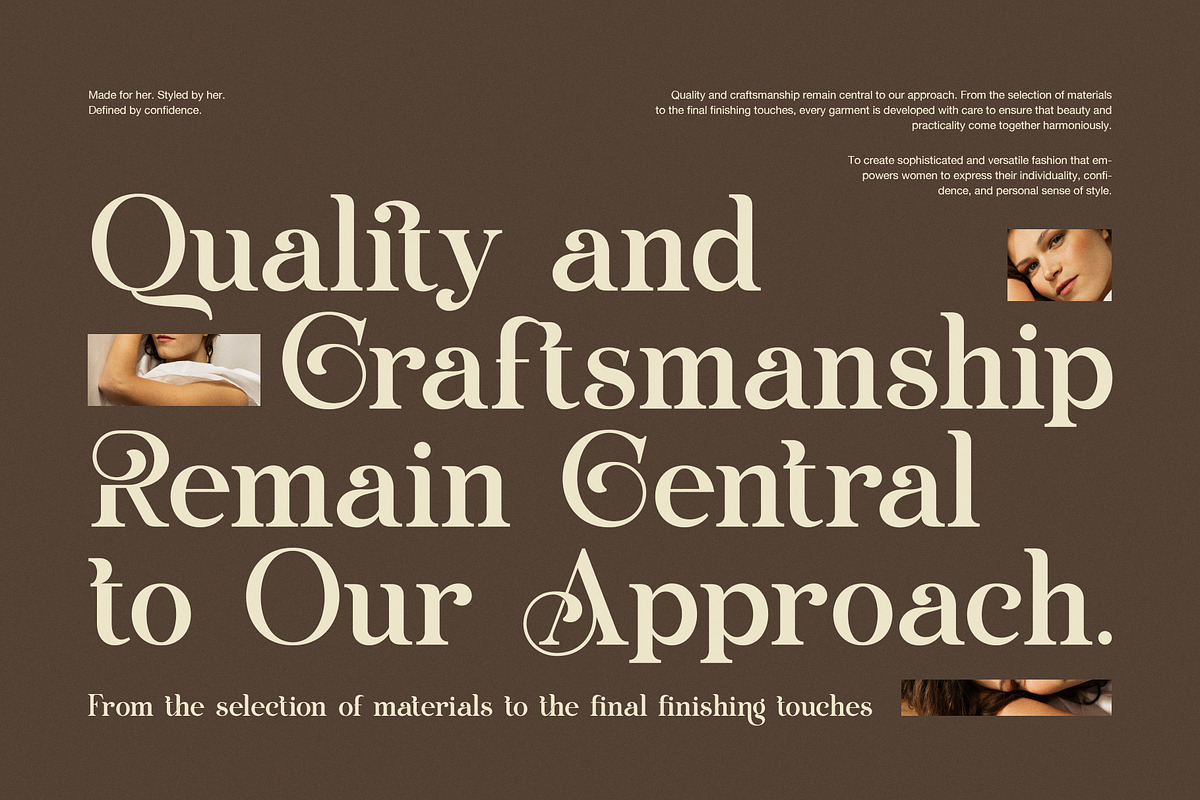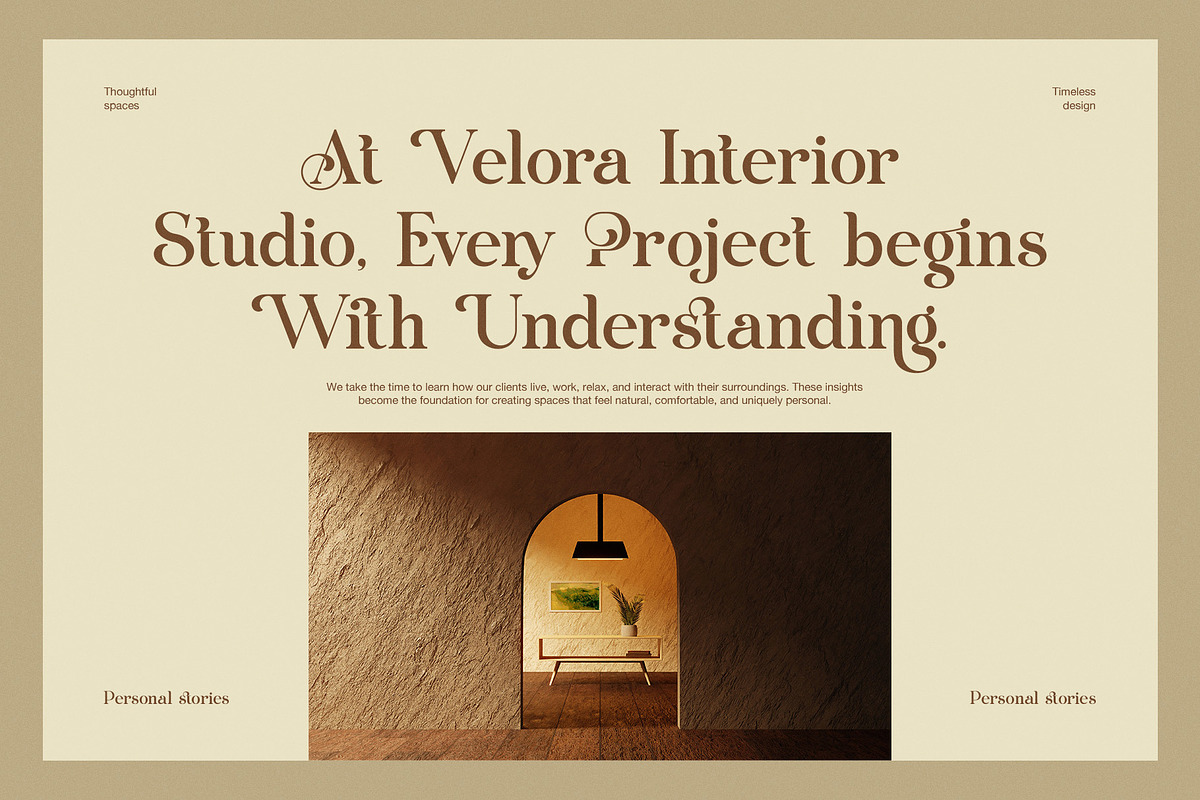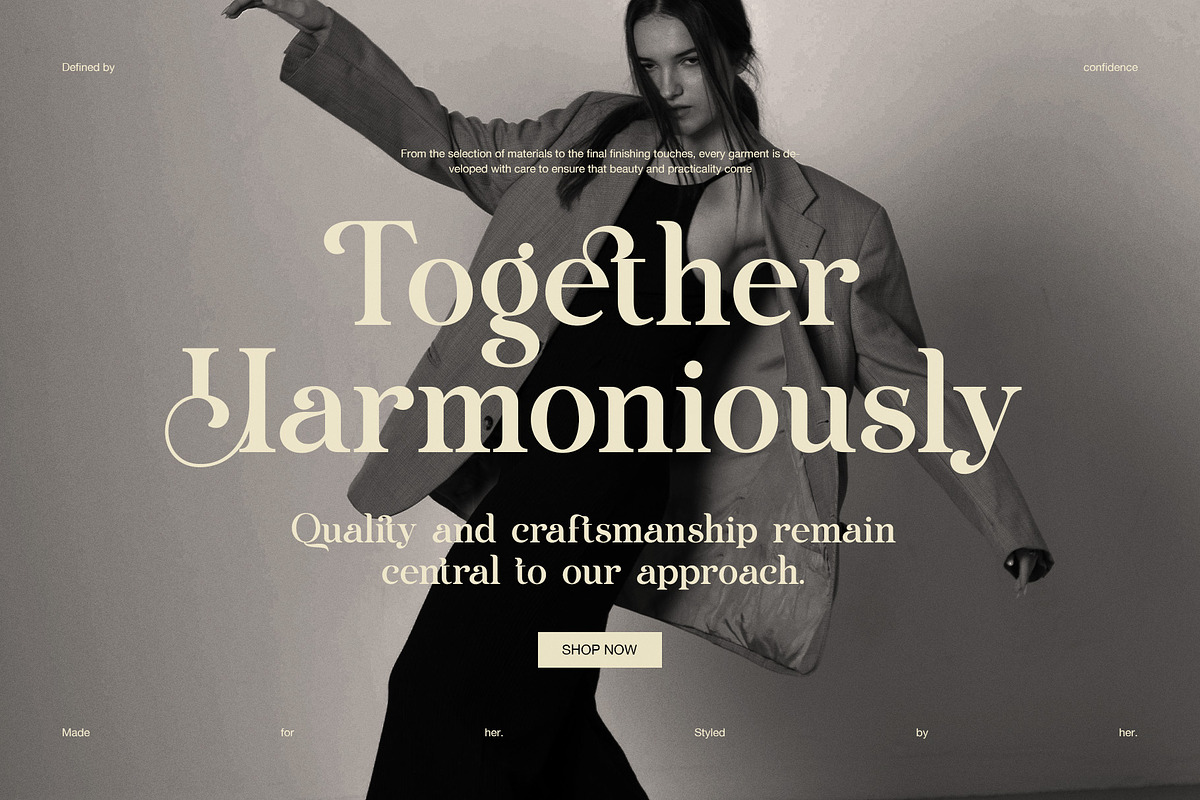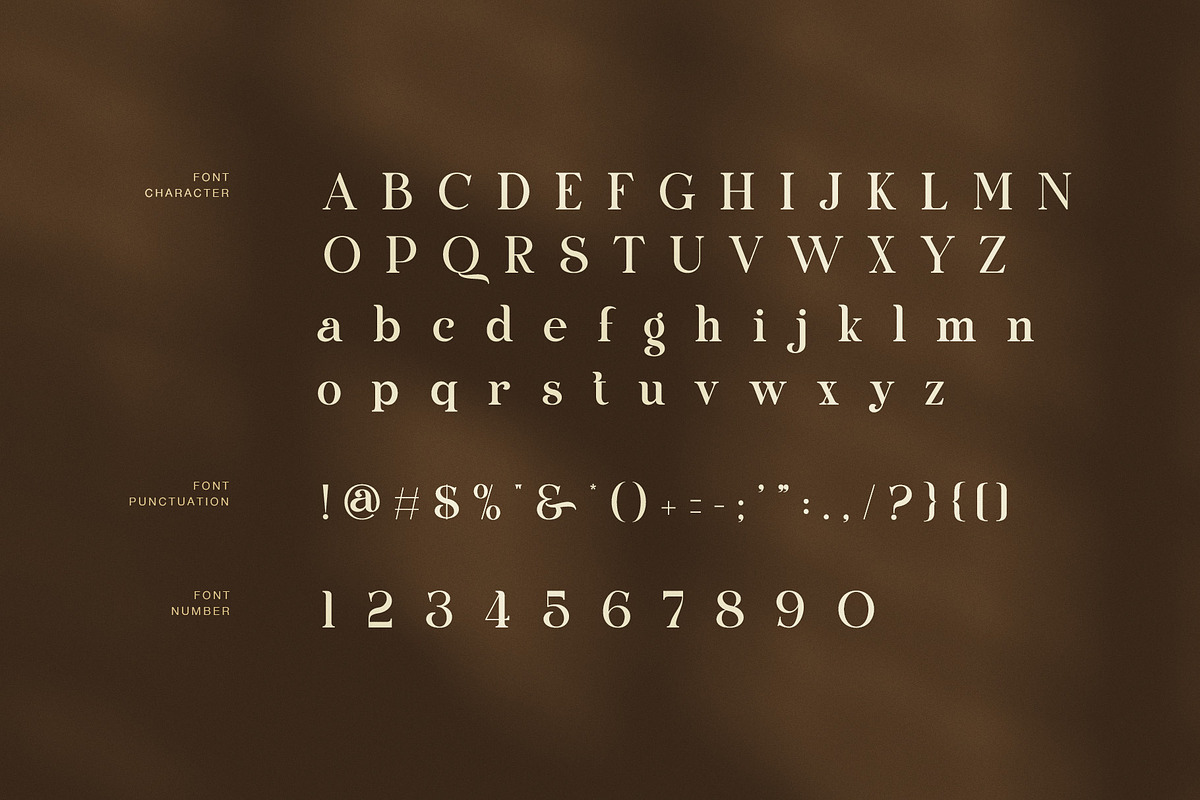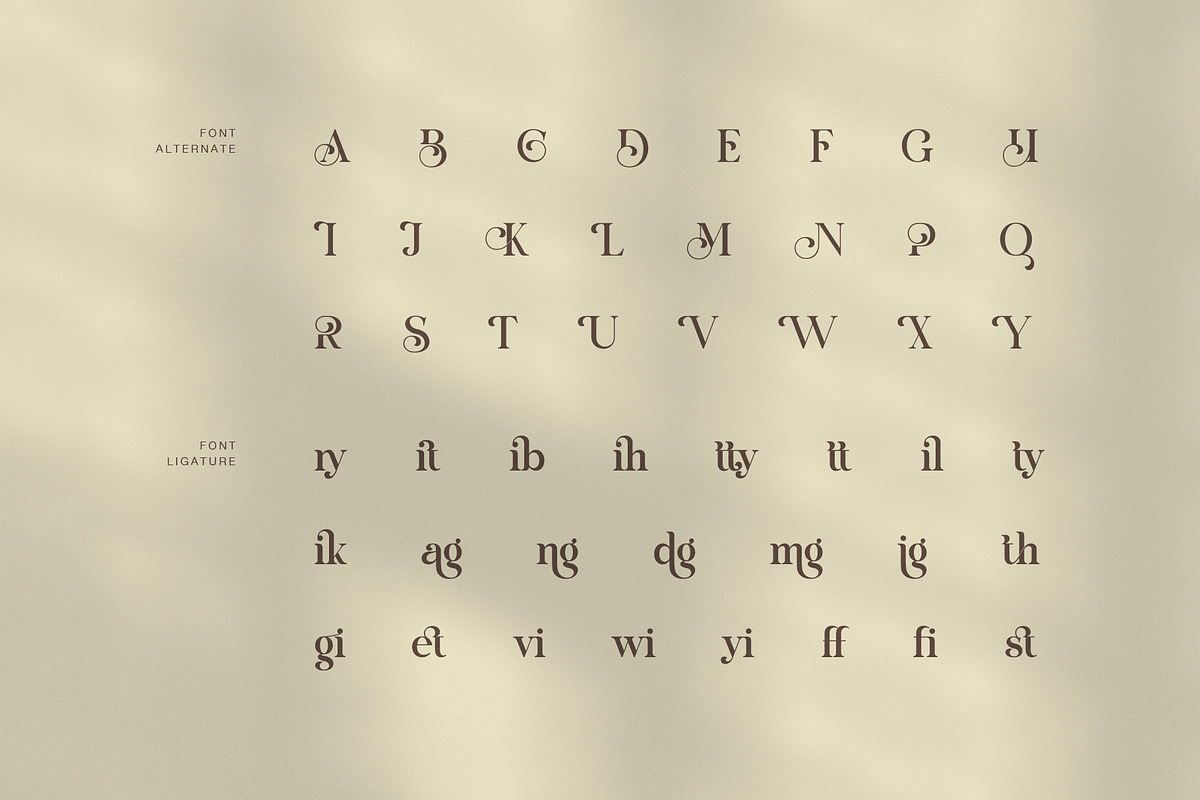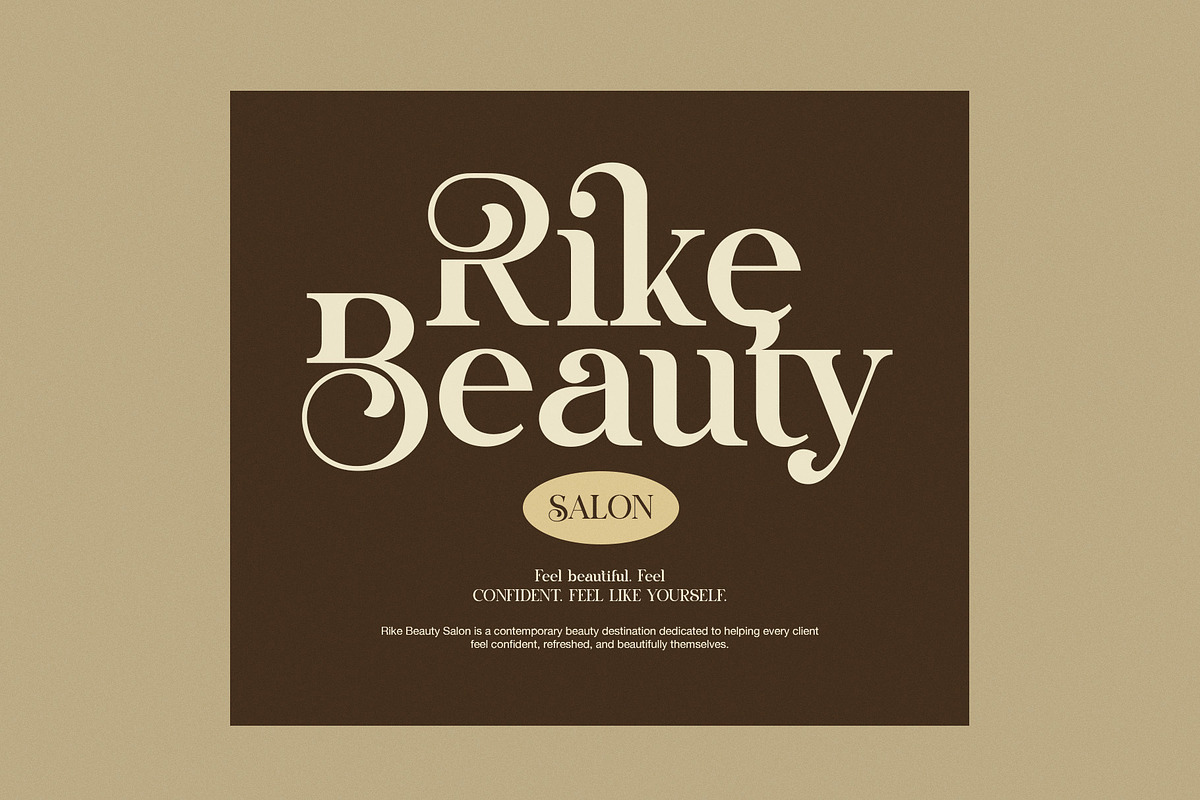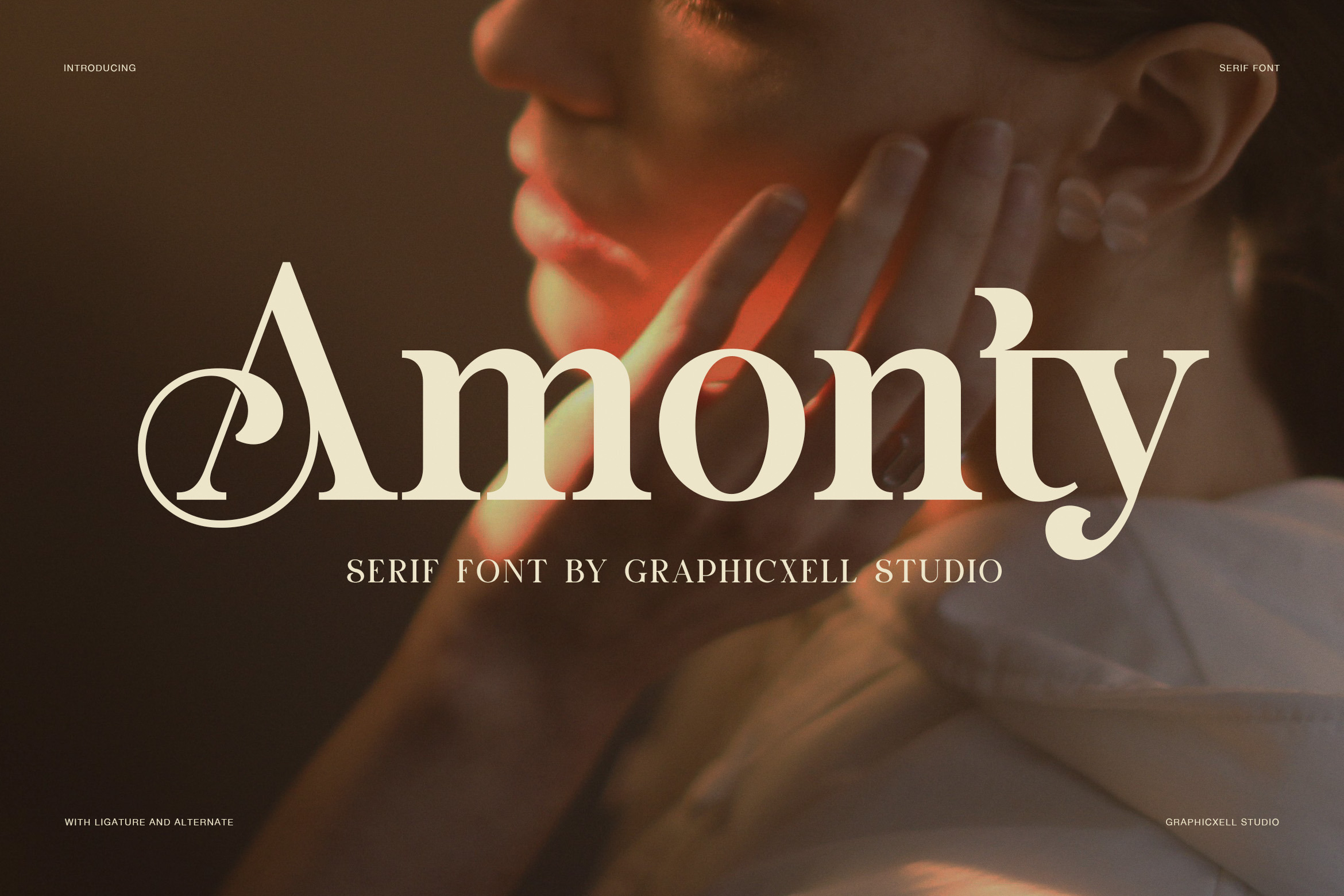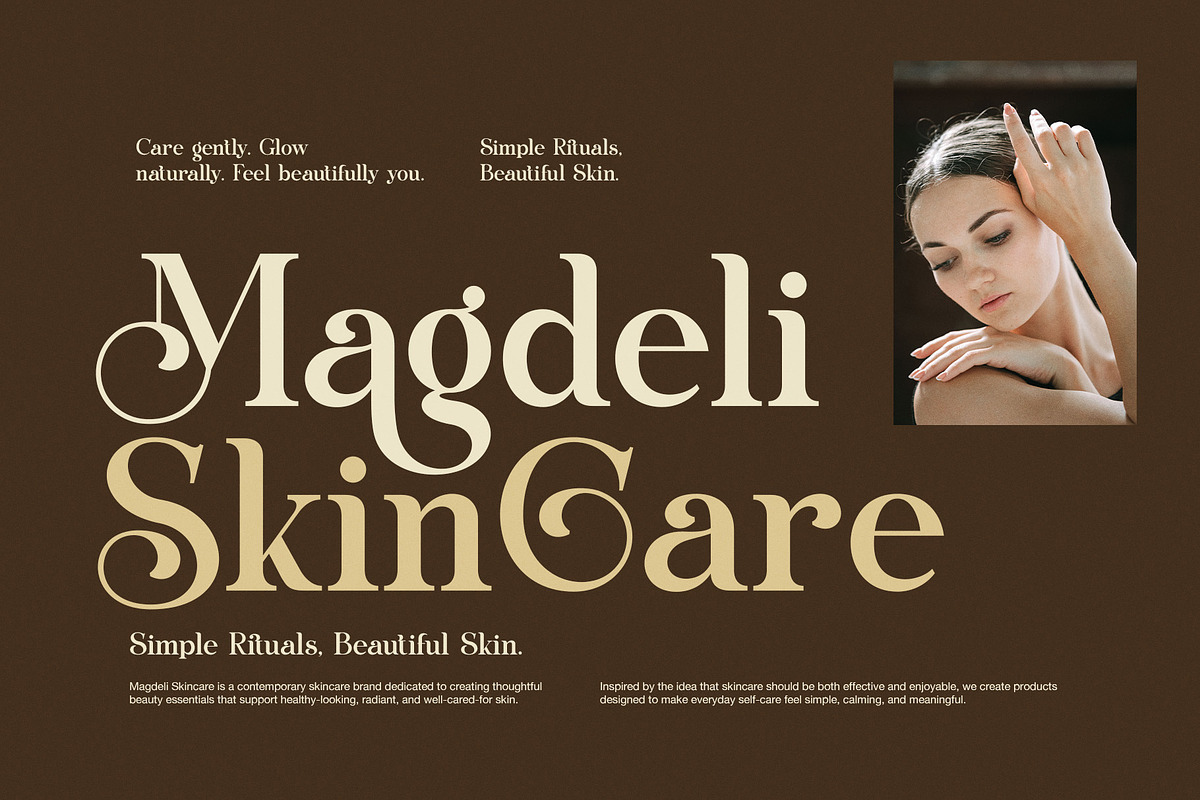
Amonty Contrast Serif Font
Amonty is a high contrast serif font designed for modern branding, beauty, fashion, and editorial design. Its bold shapes create a strong visual presence. At the same time, its soft curves and rounded details add warmth and elegance.
Unlike a very thin fashion serif, Amonty has a fuller body that keeps headlines clear and easy to read. Therefore, it works especially well when you want refined typography with a more confident feel. Its classic serif base also gives the font a timeless touch.
Amonty includes distinctive alternate characters that can add a personal finish to selected words. In addition, its ligatures create smooth and attractive letter combinations. As a result, designers can build expressive logos, headlines, and brand names without making the layout feel too busy.
Beauty and skincare branding
Fashion labels and campaigns
Salon and spa identities
Luxury lifestyle brands
Interior design studios
Editorial layouts
Magazine headlines
Product packaging
Boutique logos
Posters and promotional designs
Wedding and lifestyle stationery
The font has a strong display character. However, it can also support shorter supporting text when used at a suitable size. This flexibility makes Amonty useful for both bold statements and more subtle brand details.
Furthermore, the rounded shapes give it a friendly quality that works well for beauty and lifestyle projects. Meanwhile, the high contrast keeps the overall design polished and premium.
For fashion projects, Amonty creates an editorial feel with a modern edge. Likewise, beauty brands can use its soft curves to create an elegant and welcoming identity. Interior studios can also use the font to add a warm, crafted tone to their visual language.
Amonty is especially effective when paired with clean layouts, neutral colors, photography, and spacious compositions. Its alternate glyphs can then provide an extra decorative touch where needed.
Overall, Amonty combines bold serif structure, soft curves, expressive alternates, and useful ligatures in one versatile display typeface. It is made for designers who want typography that feels modern, elegant, warm, and confident.